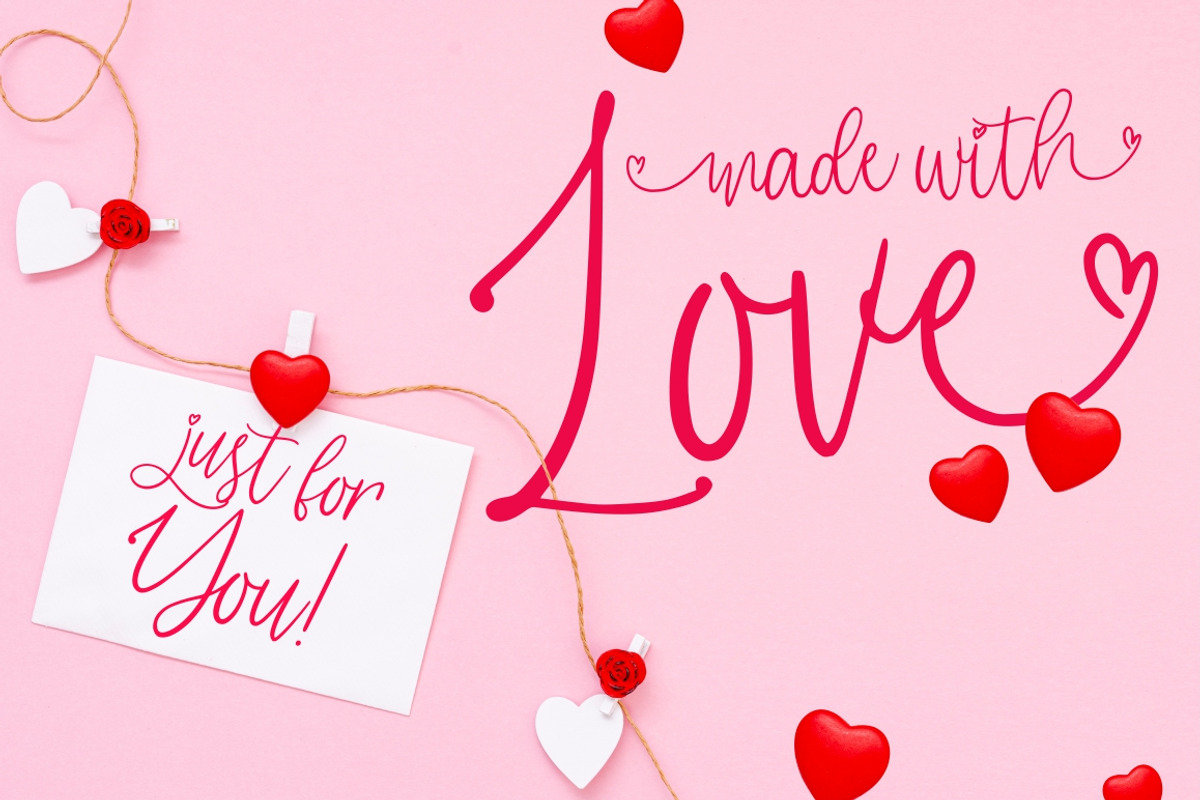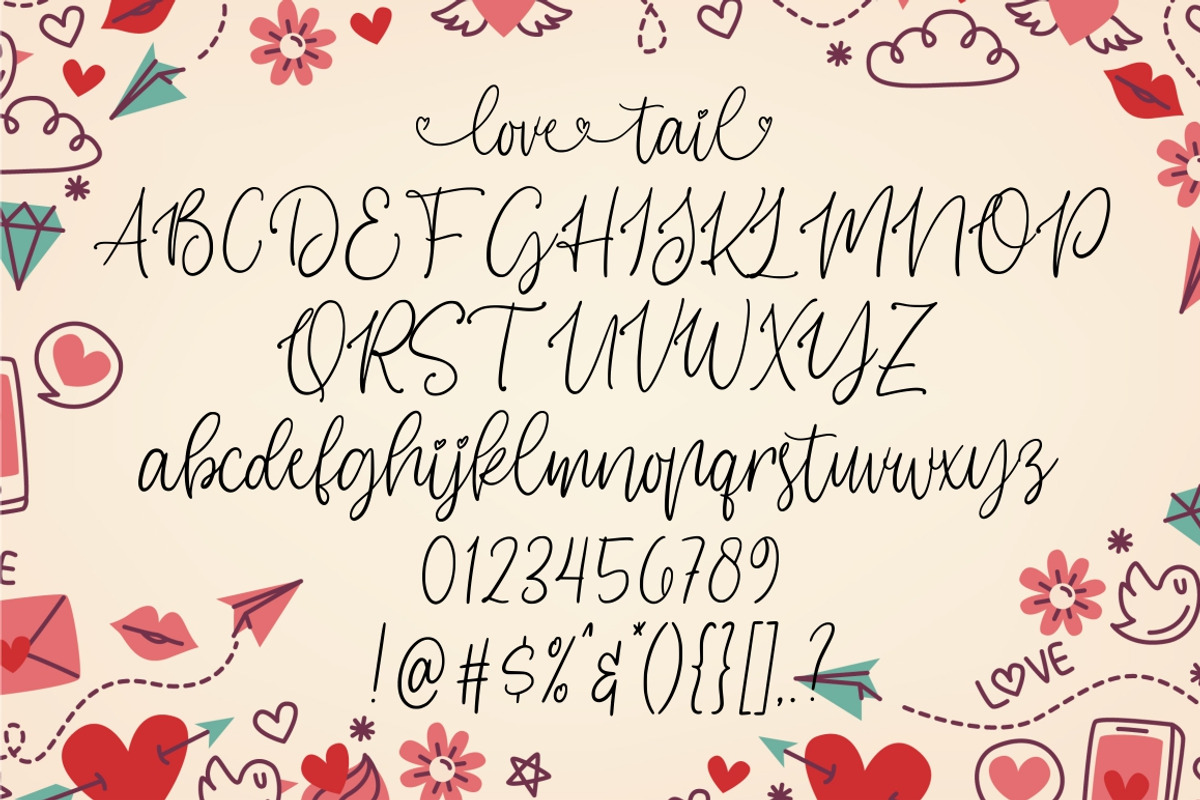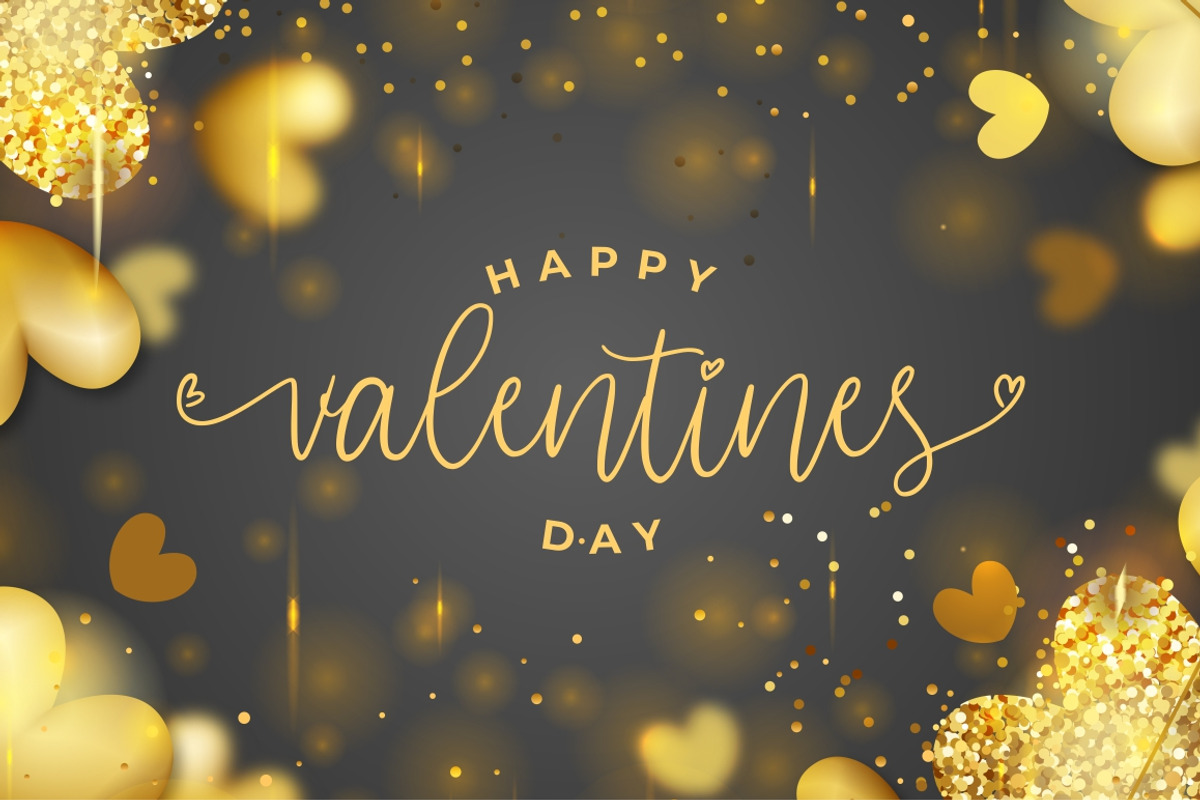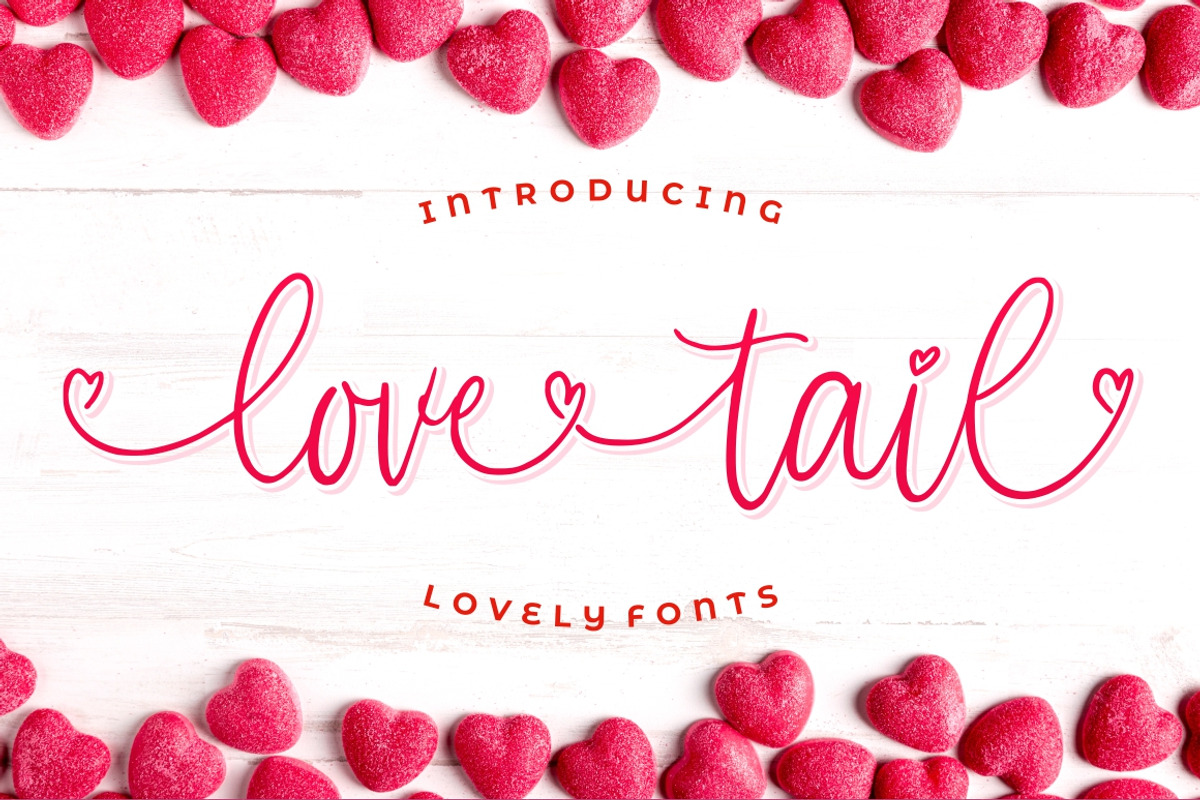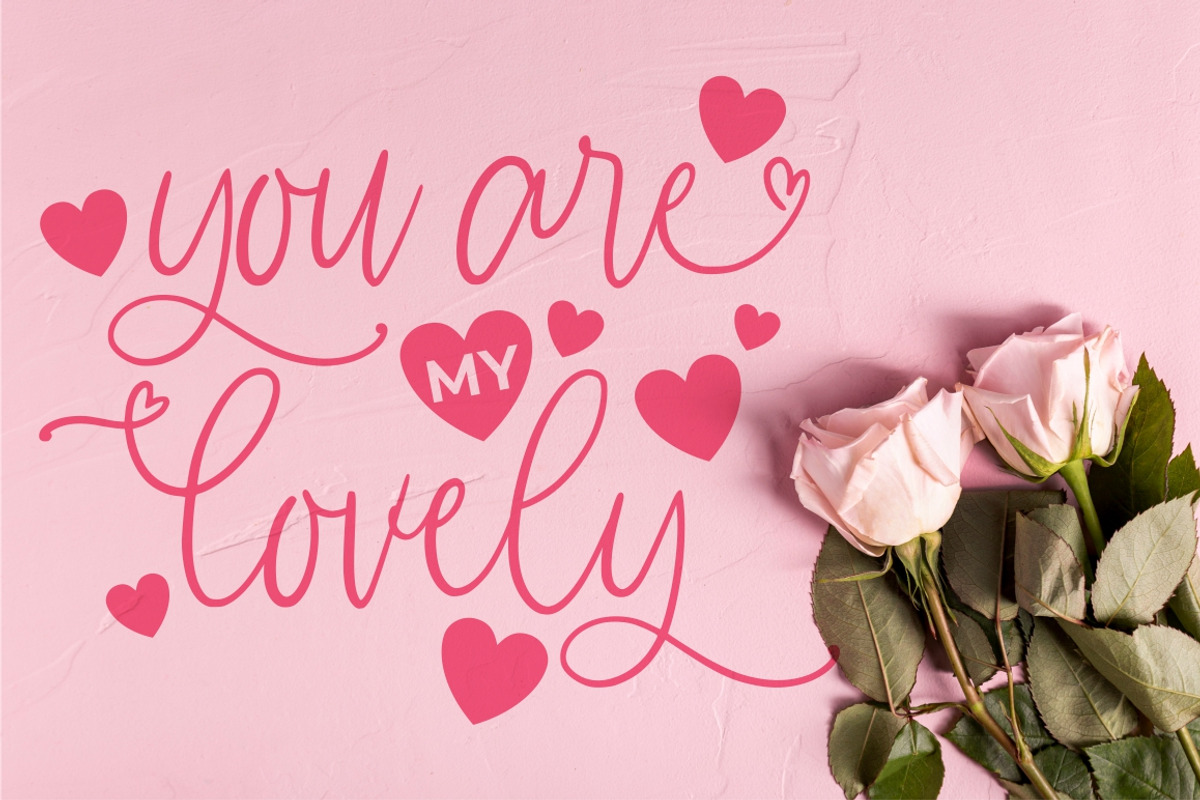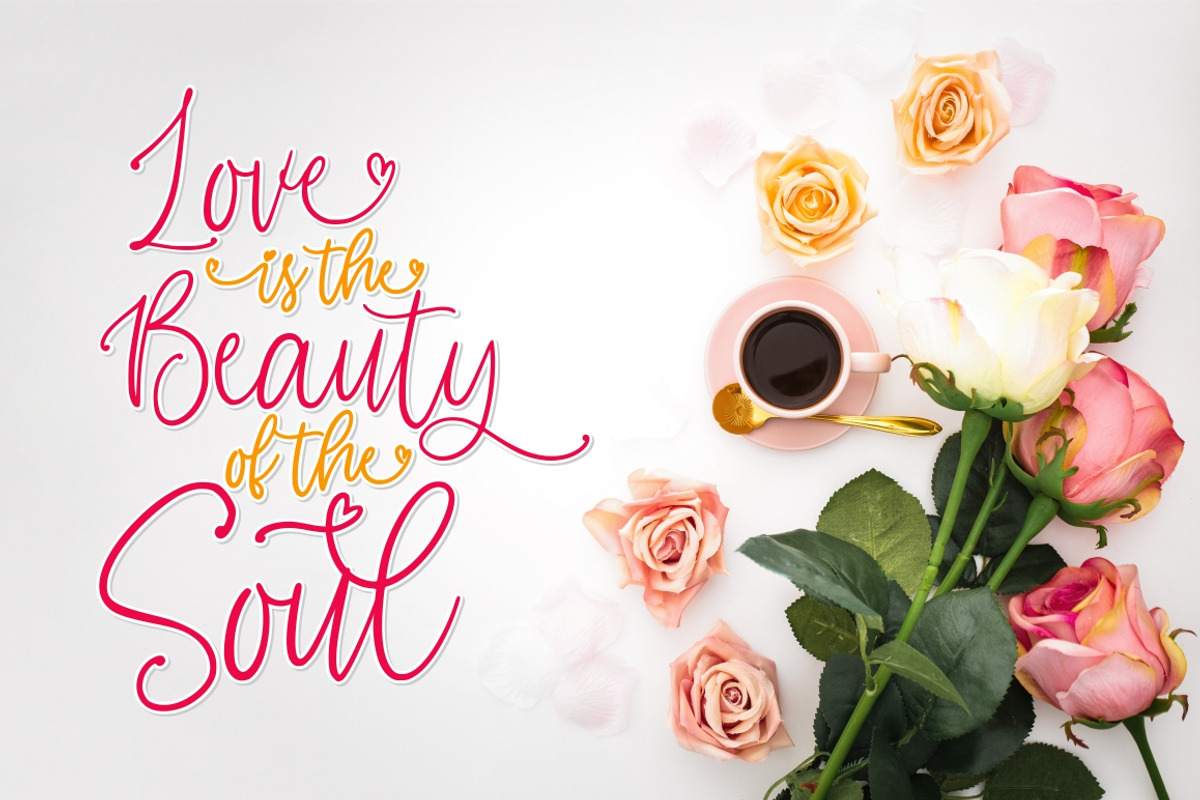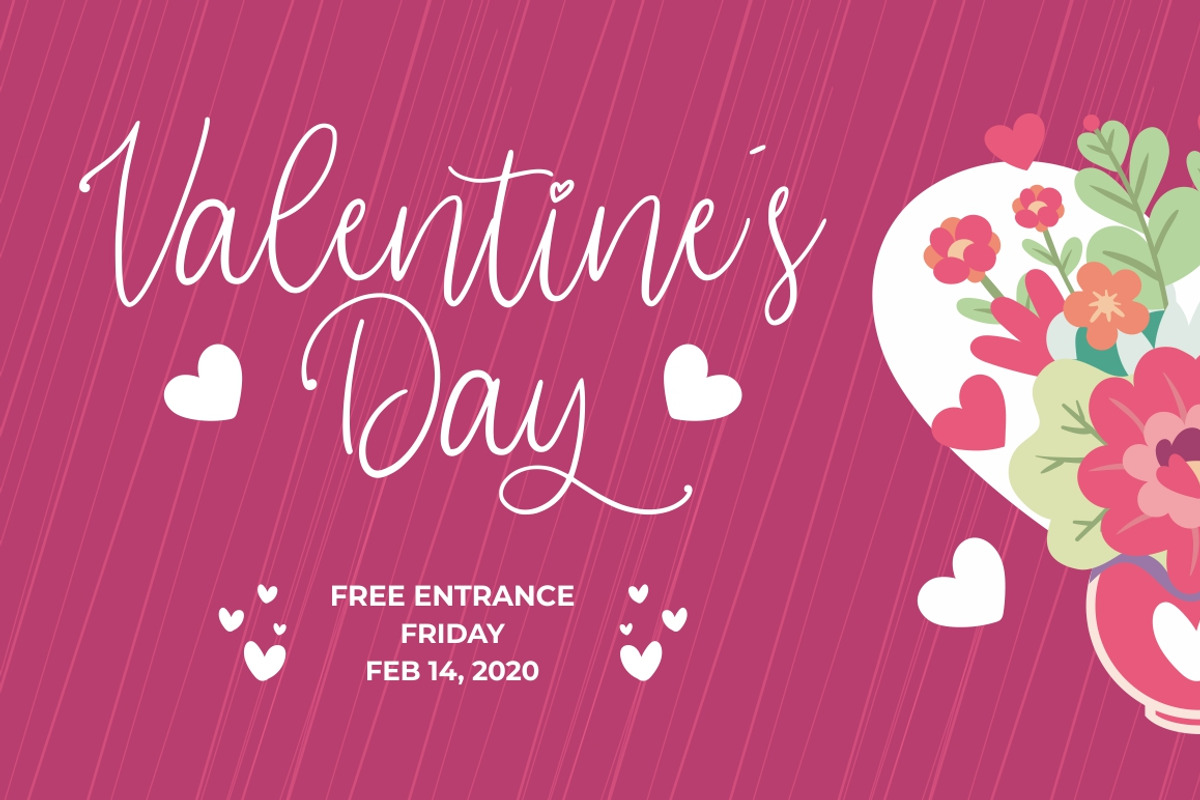
Love Tails | Lovely Font
Introducing Love Tail | Lovely Font
Love Tail a luxury font is a natural & modern handwritten font. I'ts Perfect for logo, invitation, stationery, wedding designs, social media posts, advertisements, product packaging, product designs, label, photography, watermark, special events or anything. This font include : Love Tail OTF-TTF , Standar Ligatures, Stylistic Sets, and also Multilingual support.
What's Advantages Love Tail?
Very great for branding, logotype, handlettering, invitations, or fashion branding.
Why Love Tails | Lovely Font is worth a look
Love Tails | Lovely Font by Good Java Studio fits naturally into Branding, posters, packaging, typography.